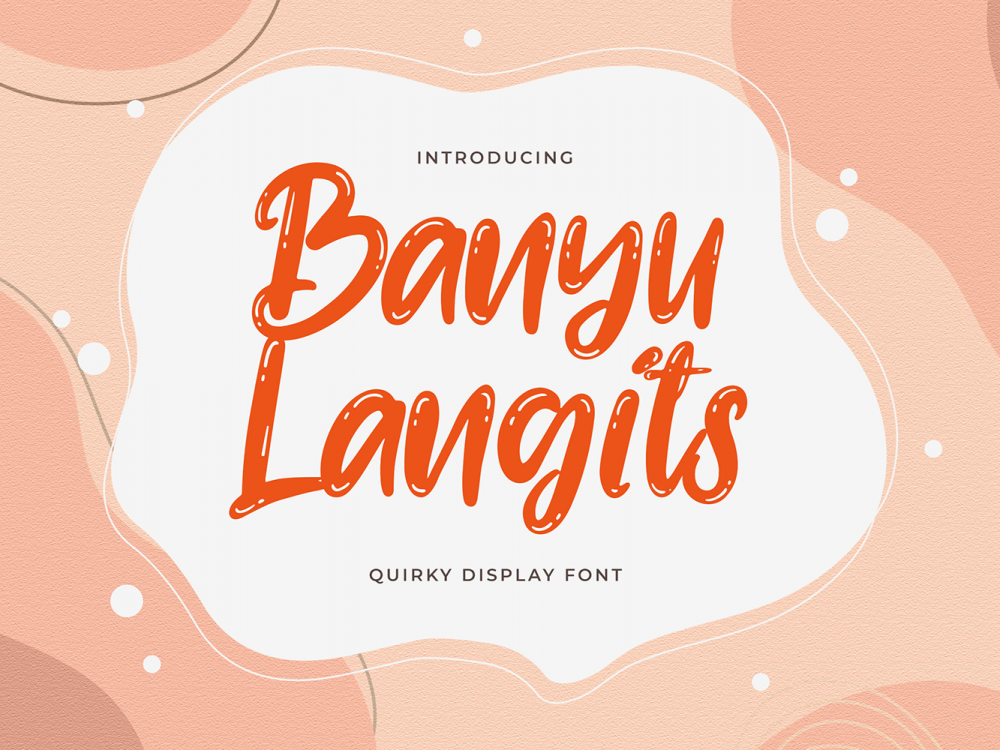
Banyu Langits Free Font
Banyu Langits Free Font is a modern script font that simulates writing with a brush and that feels very elegant that features a modern calligraphic style among other fonts. This font is very well suited for various projects that require a scripted modern handwritten font. Use this font to create memorable romantic posters, wedding invitations, greeting cards, branding, flyers, t-shirt and pillow prints, and more. Improve your professional level using this font. If you like it don’t forget to check out the full version.